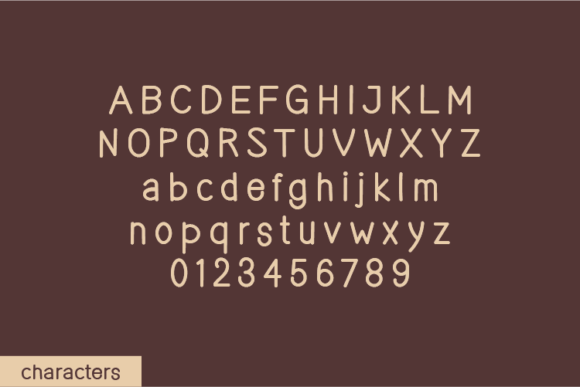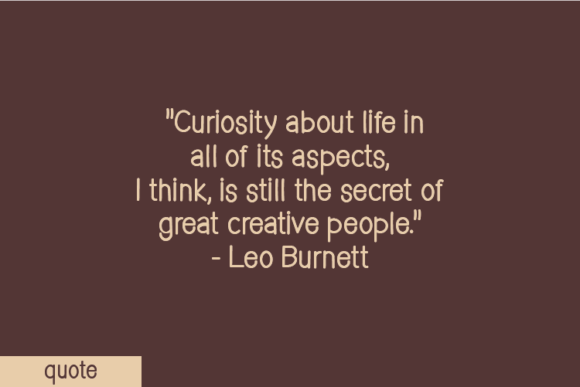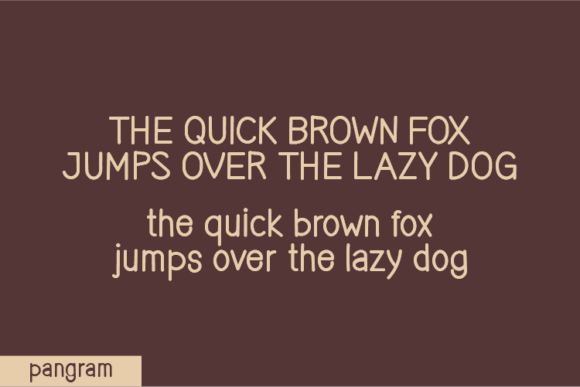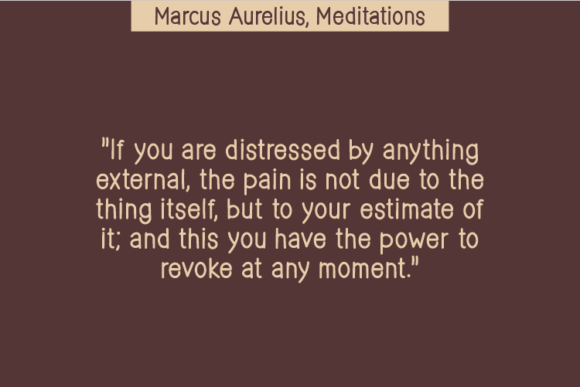
Introducing Complementing: The Unique Handwritten Font for Creative Designs
In the world of typography, a font can make or break a design. With thousands of fonts available, it can be overwhelming to choose the perfect one that complements your creative vision. However, if you’re looking for a font that stands out from the rest, look no further than Complementing. This natural handwritten font is a game-changer for designers and crafters alike, and we’re excited to dive into its unique features and uses.
The Unique Selling Point of Complementing
So, what makes Complementing font so special? The answer lies in its distinctive characteristic: no alteration of a single node in each character’s indentation. This means that every letter, number, and symbol has a natural, handwritten feel without any artificial adjustments. The result is a font that exudes warmth, personality, and authenticity.
This unique feature sets Complementing apart from other handwritten fonts, which often rely on manipulated nodes to achieve a specific look. By preserving the natural flow of handwriting, Complementing creates a sense of organic charm that’s hard to replicate with other fonts.
Ideal Uses for Complementing Font
Complementing font is incredibly versatile, making it suitable for a wide range of design applications. Here are some of the ideal uses for this unique font:
- Quotes and Inspirational Sayings: Complementing font is perfect for creating visually appealing quotes, social media posts, and inspirational sayings. Its natural, handwritten feel adds a touch of warmth and personality to your message.
- Notes and Journaling: Whether you’re designing a journal, planner, or notebook, Complementing font is an excellent choice. Its unique character indentation makes it easy to read and adds a personal touch to your notes.
- T-Shirts and Merchandise: Complementing font is a great choice for designing t-shirts, hoodies, and other merchandise. Its distinctive look will make your designs stand out and give your brand a memorable identity.
- Product Design: From packaging to branding, Complementing font can elevate your product design to the next level. Its natural, handwritten feel creates a sense of approachability and friendliness, making it perfect for product labels, brochures, and marketing materials.
Why Designers and Crafters Love Complementing Font
Designers and crafters alike adore Complementing font for its unique characteristics and versatility. Here are some reasons why:
- Easy to Read: Despite its handwritten nature, Complementing font is surprisingly easy to read, even at smaller font sizes. This makes it perfect for body text, captions, and other applications where legibility is crucial.
- Highly Versatile: Complementing font comes in a range of styles and weights, making it suitable for various design applications. Whether you’re designing a logo, brochure, or social media post, this font can adapt to your needs.
- Unique and Memorable: Let’s face it – Complementing font is one-of-a-kind. Its distinctive look will make your designs stand out in a crowded market, leaving a lasting impression on your audience.
In conclusion, Complementing font is a game-changer for designers and crafters looking to add a touch of personality to their designs. Its unique, natural handwritten feel and versatility make it perfect for a wide range of applications, from quotes and notes to t-shirts and product design. If you’re looking for a font that will elevate your designs and make them stand out, look no further than Complementing.